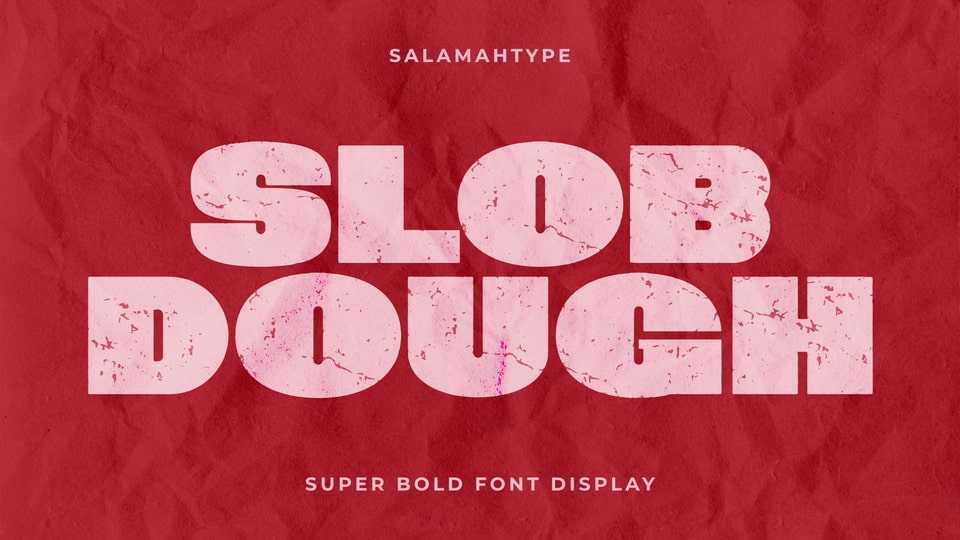
Download Slob Dough font, a super bold typeface that is very suitable for use with various print and digital media, with its thickness capable of attracting attention when used as a headline or logo.